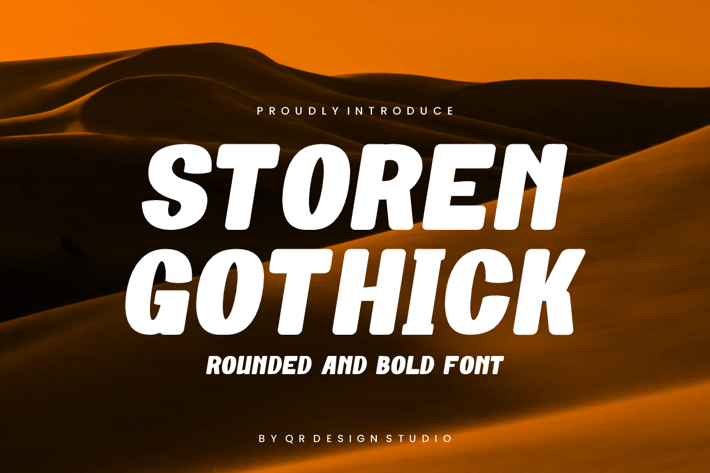
Storen Gothick - Condensed & Rounded Font
Storen Gothick - Condensed & Rounded Font is a bold and authentic display font.
The font is suitable for any branding project like poster, logo, kids, sport, and many more.